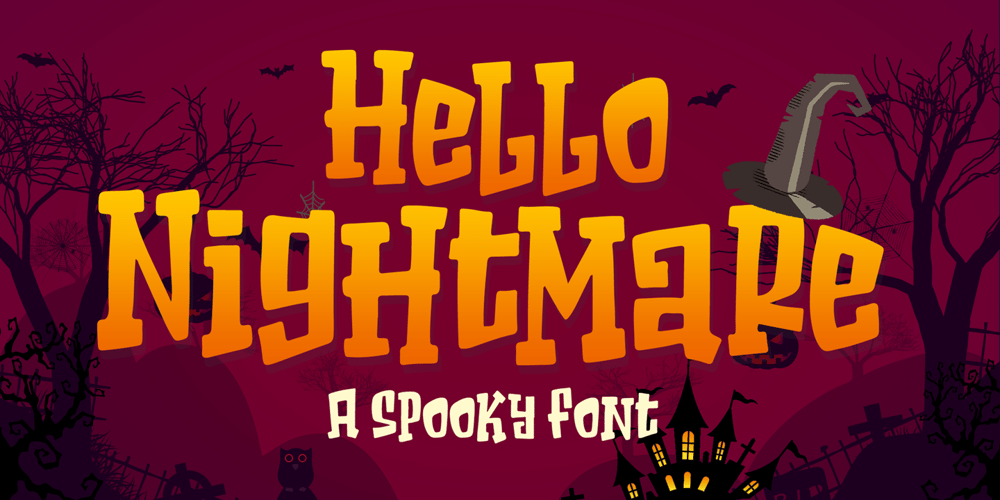
Hello Nightmare Font Family was designed by Bangkit Tri Setiadi and published by Blankids. Hello Nightmare contains 1 styles and family package options. Introducing of our new product the name is Hello Nightmare a Spooky Font inspired by beauty quirky style this font is a fun theme very good for display, T-shirt design, craft, quote sign, logotype and etcFEATURES : Uppercase Lowercase Number Punctuation Multilingual PUA Encode Opentype